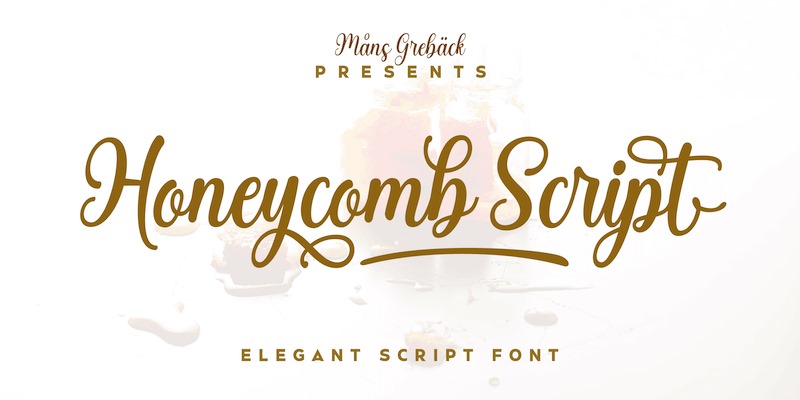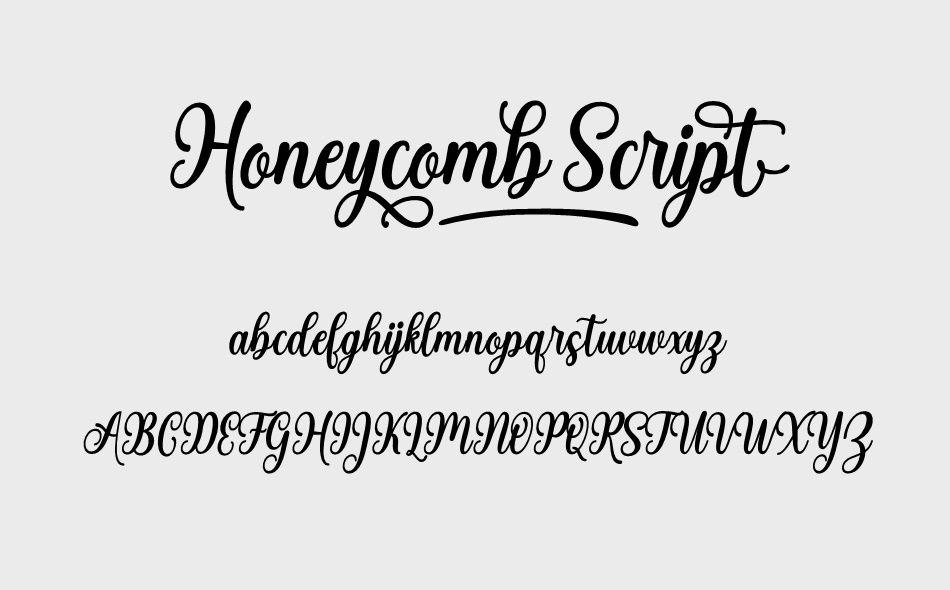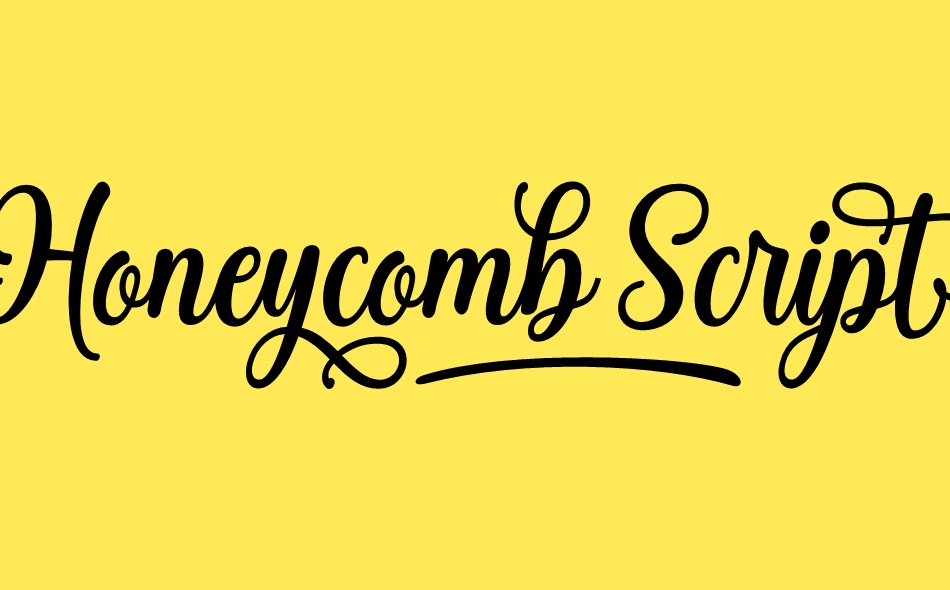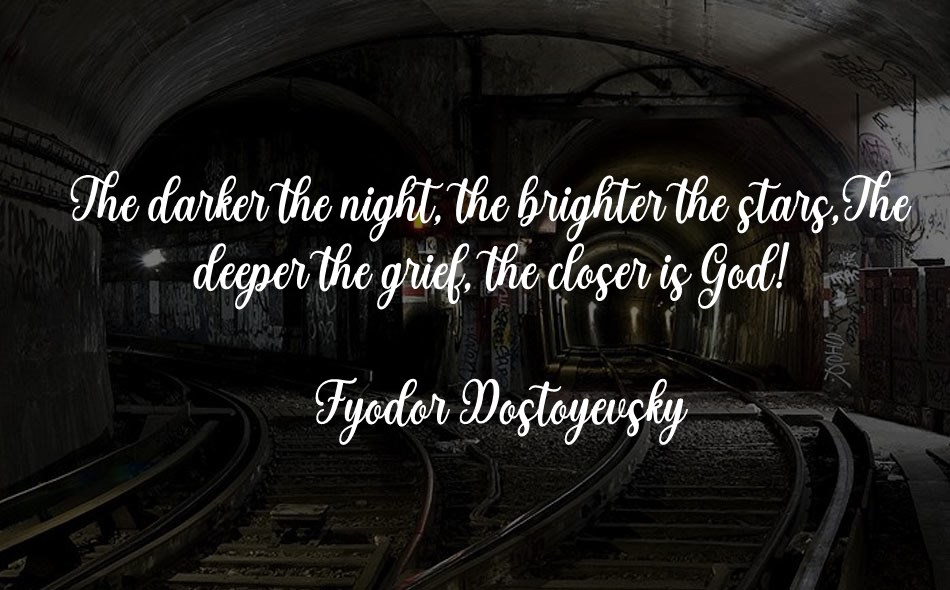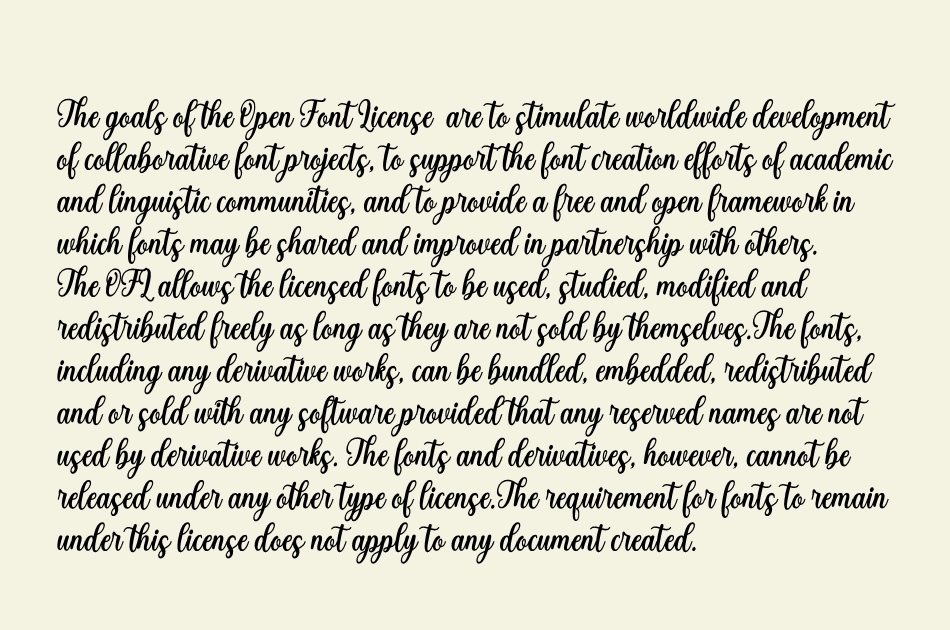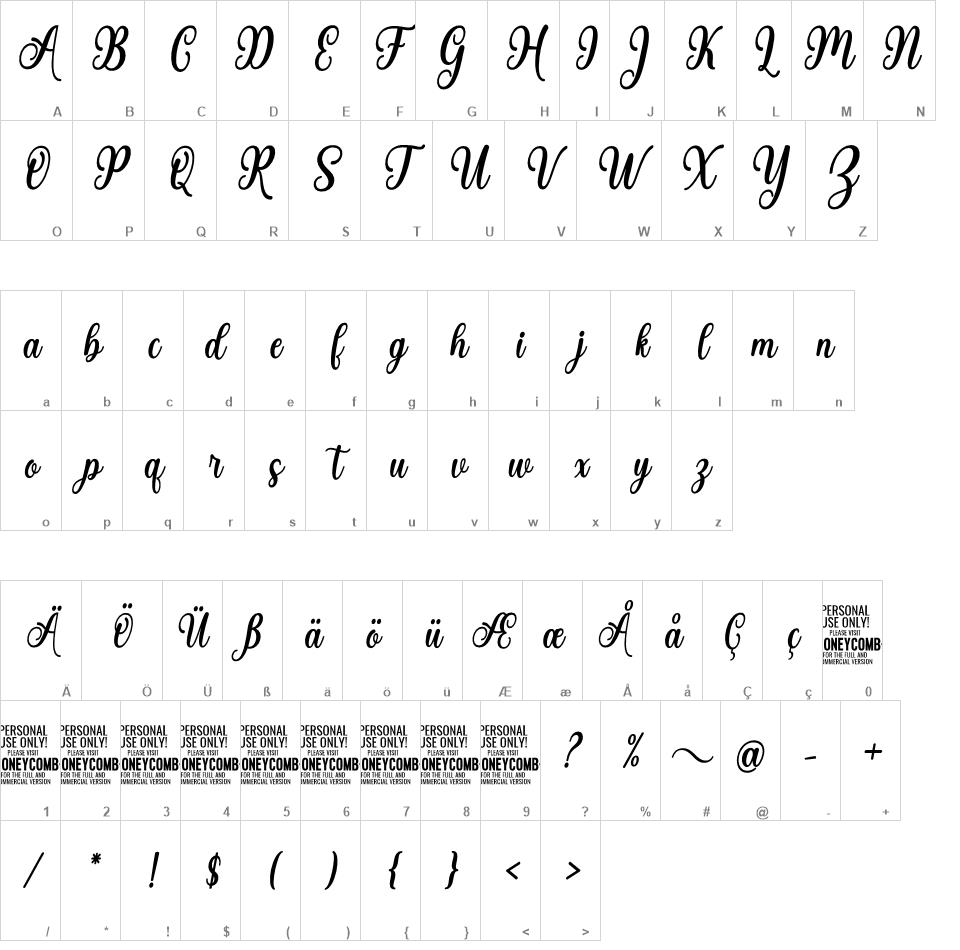
Honeycomb Script font
Honeycomb Script is a delightfully charming handwriting font, boasting a cute and quirky aesthetic. With its naive and endearing style, it captures the magical essence of the natural world's sweetest architect.
Use one or multiple underscores _ anywhere in a word to add a decorative underline.
Example: Sweet_____Honey
Try using # before or after any word to make lovely swashes.
Example: #beehive#
Honeycomb Script is a delightfully charming handwriting font, boasting a cute and quirky aesthetic. With its naive and endearing style, it's perfect for adding a touch of craft-inspired charm to your creative projects.
The birth of Honeycomb Script was sparked by blooming wildflowers and bustling honeybees. The harmonious dance of the bees in their natural habitat inspired the unique and playful letterforms of Honeycomb Script, capturing the magical essence of the natural world's sweetest architect.
Use one or multiple underscores _ anywhere in a word to add a decorative underline.
Example: Sweet_____Honey
Try using # before or after any word to make lovely swashes.
Example: #beehive#
The font offers six high-quality styles: Thin, Regular, Bold, and their italic versions, giving you the flexibility to adapt to any design context.
The font is built with advanced OpenType functionality and has a guaranteed top-notch quality, containing stylistic and contextual alternates, ligatures and more features; all to give you full control and customizability. It has extensive lingual support, covering all Latin-based languages, from Northern Europe to South Africa, from America to South-East Asia. It contains all characters and symbols you'll ever need, including all punctuation and numbers.